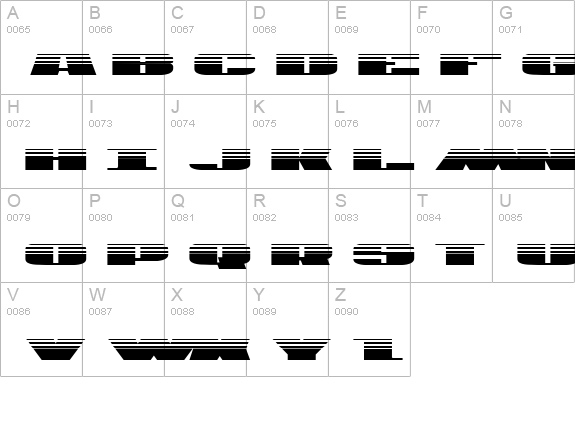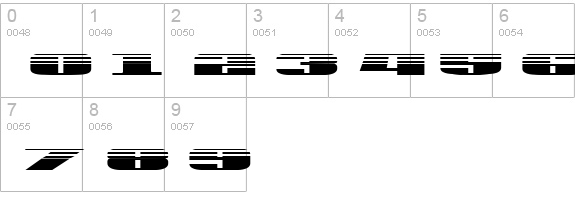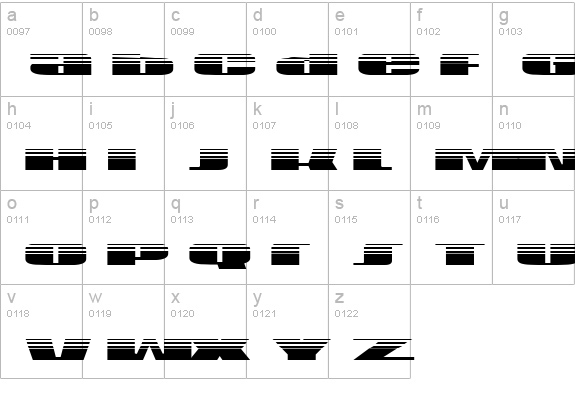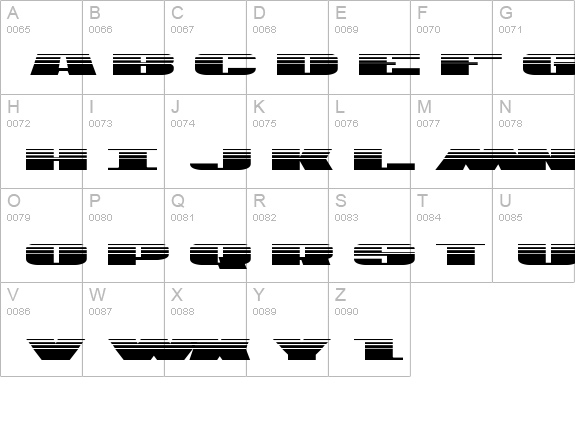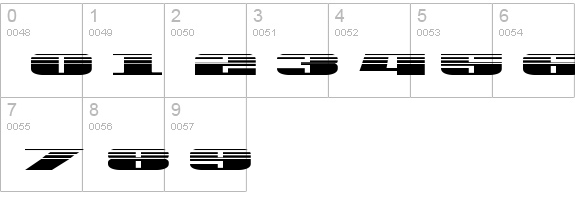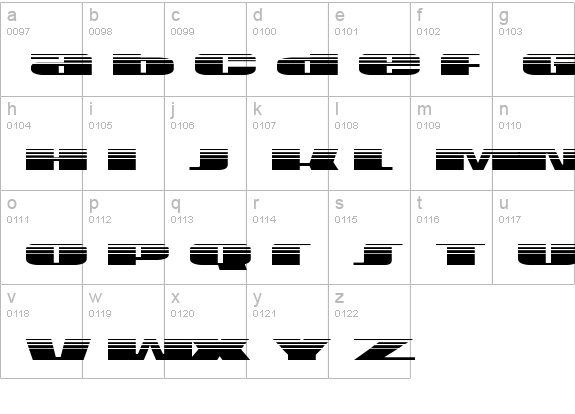
Introducing the captivating U.S.A. Gradient font, a perfect blend of boldness and elegance that will elevate your designs to new heights. With its unique gradient effect, this font effortlessly adds a touch of sophistication and modernity to any project. U.S.A. Gradient font offers a wide range of versatility, making it perfect for various design purposes. Whether you're working on branding, advertising, website design, or any other creative endeavor, this font will make a lasting impression. Its contemporary and eye-catching appearance will captivate your audience and ensure your message is beautifully communicated. What sets U.S.A. Gradient font apart is its seamless integration of gradients into each letterform. The smooth transitions of colors create a mesmerizing visual effect, adding depth and dimension to your typographic compositions. This font truly embodies the spirit of innovation and creativity, allowing you to stand out from the crowd effortlessly. The best part is that U.S.A. Gradient font is available for free download exclusively at FontsMarket.com. We believe that every designer deserves access to high-quality resources without breaking the bank. By offering this font free of charge, we aim to empower and inspire creators worldwide. Downloading U.S.A. Gradient font is a breeze. Simply visit FontsMarket.com, search for U.S.A. Gradient font, and click on the download button. Within moments, you'll have this exceptional font at your disposal, ready to transform your designs into works of art. Don't miss out on this incredible opportunity to elevate your creative projects with the mesmerizing U.S.A. Gradient font. Download it for free today at FontsMarket.com and experience the power of captivating typography. Unleash your creativity and leave a lasting impression with U.S.A. Gradient font.